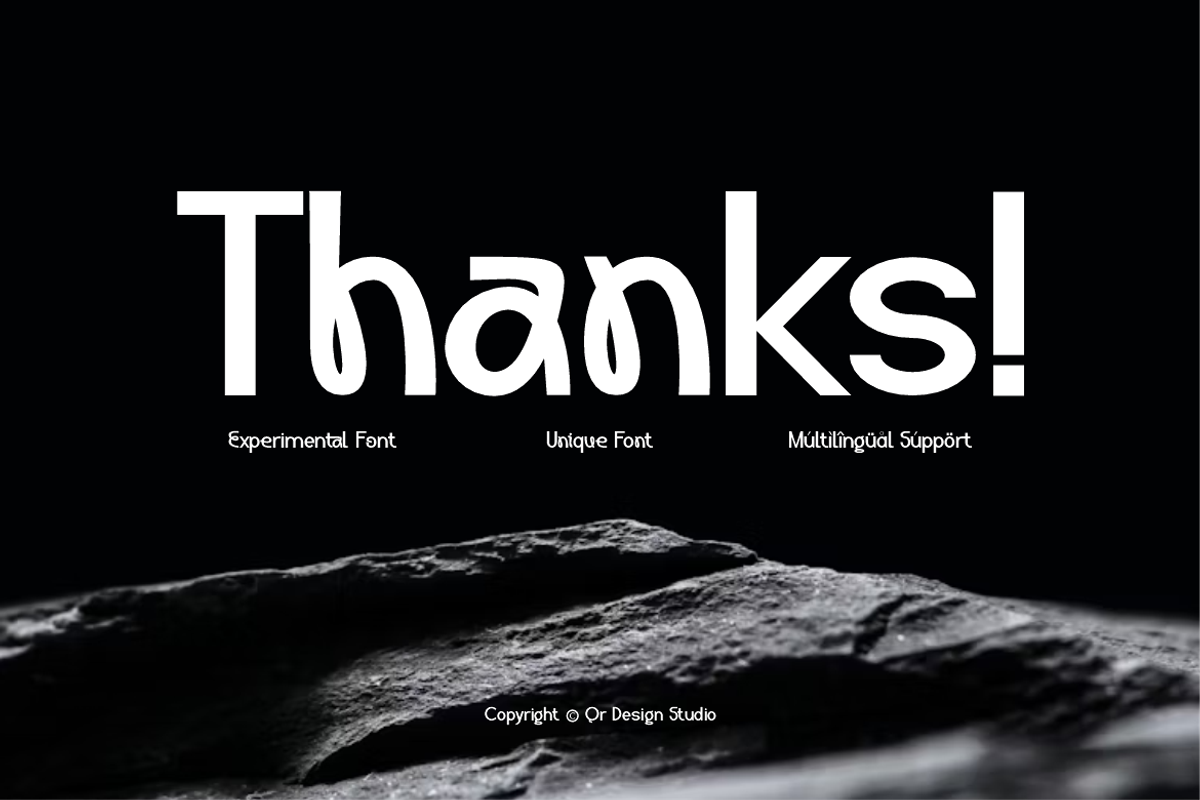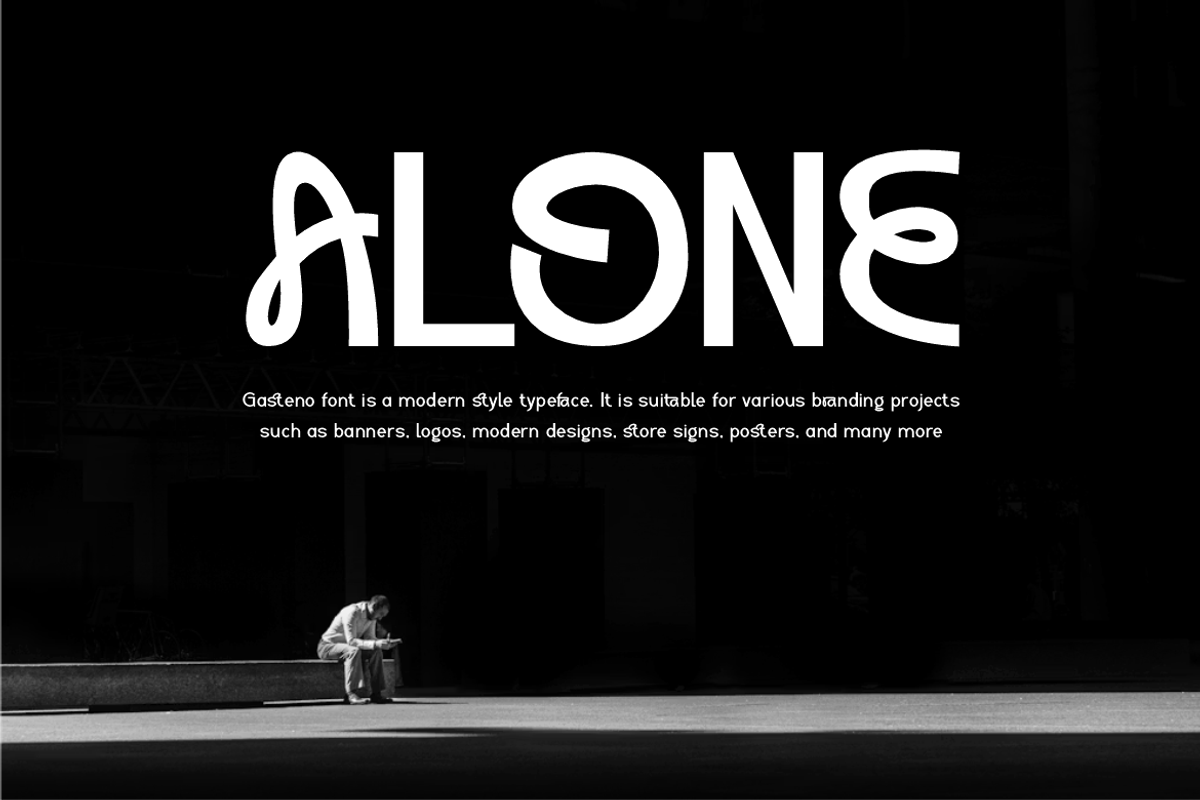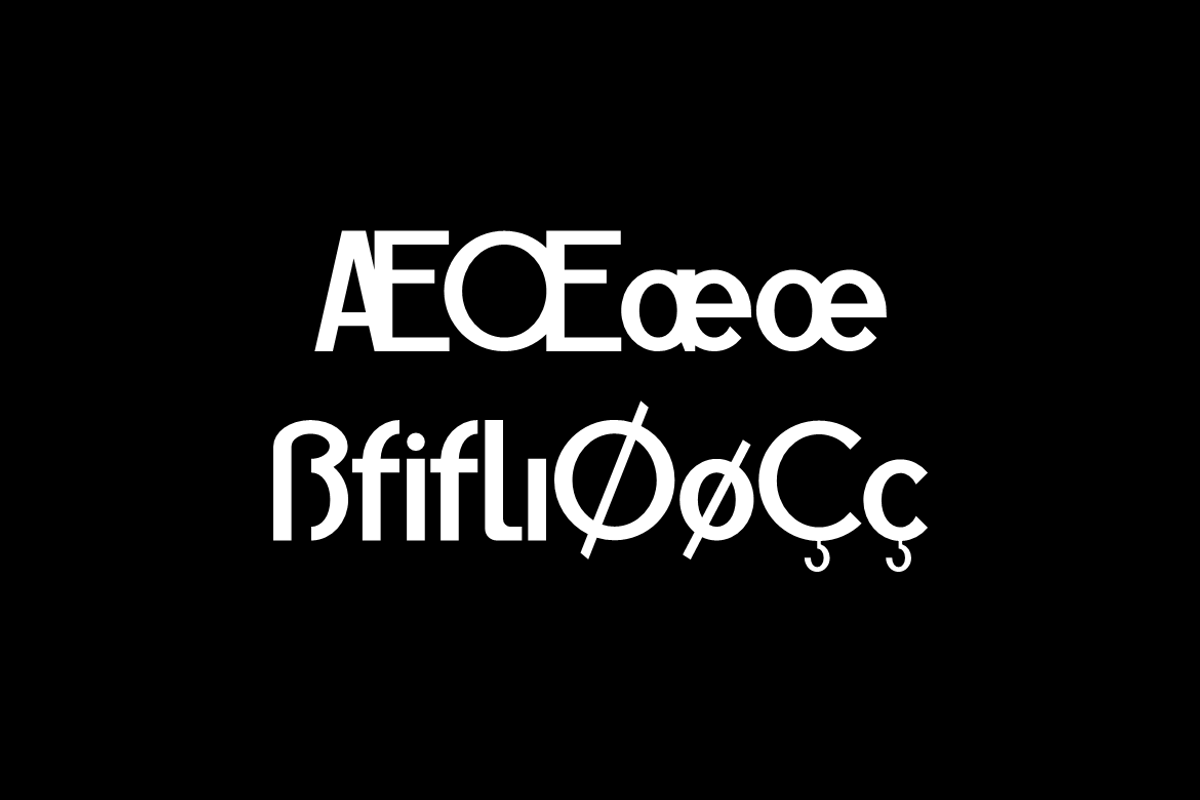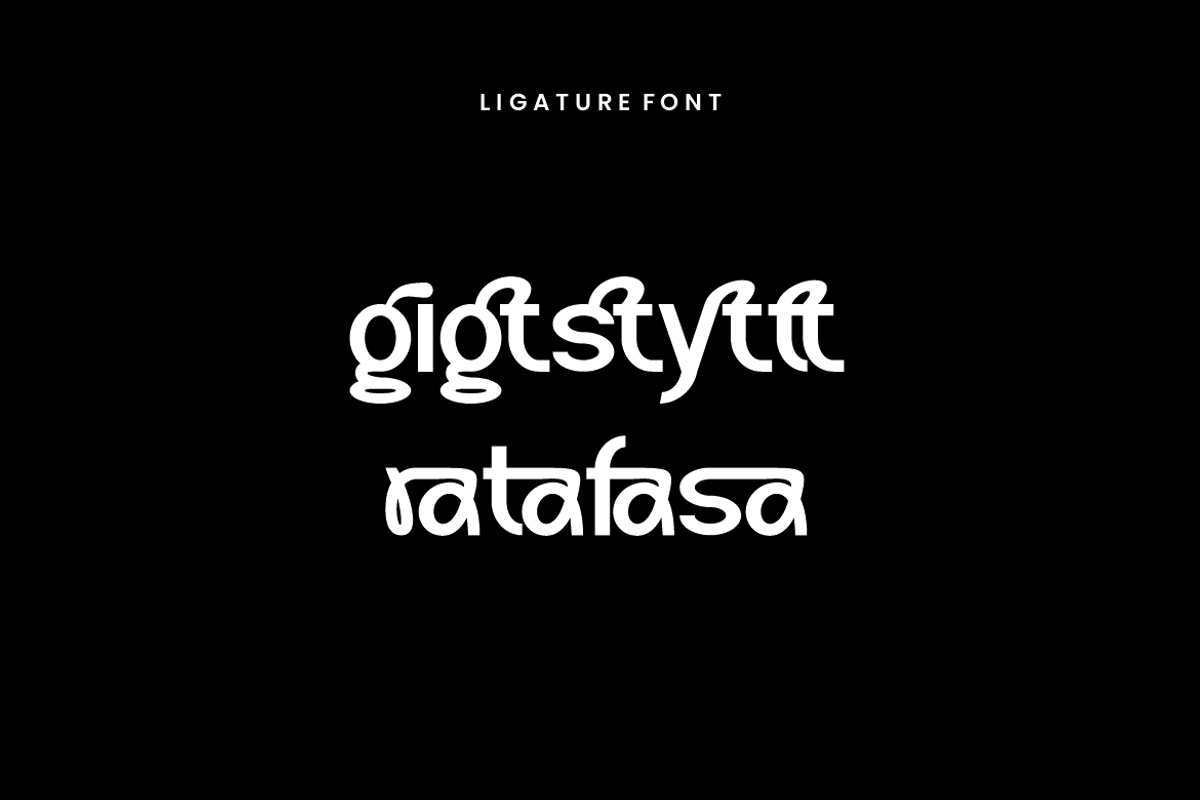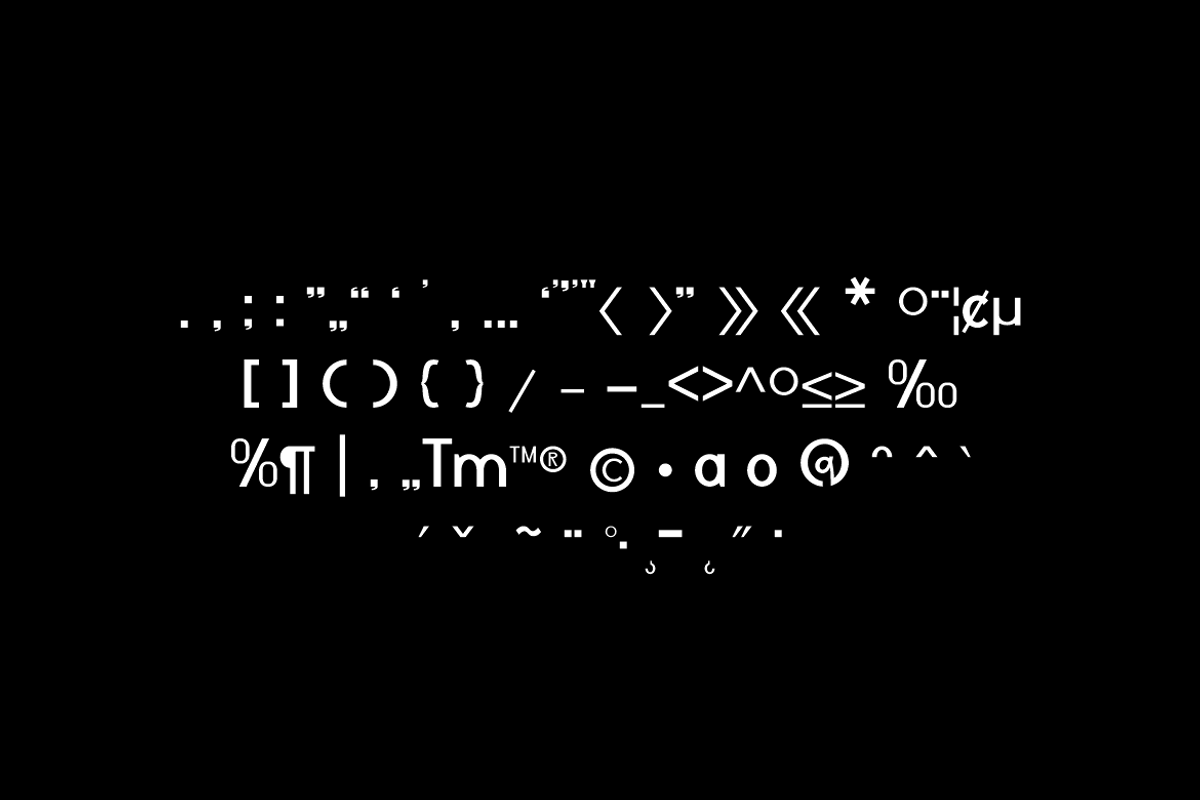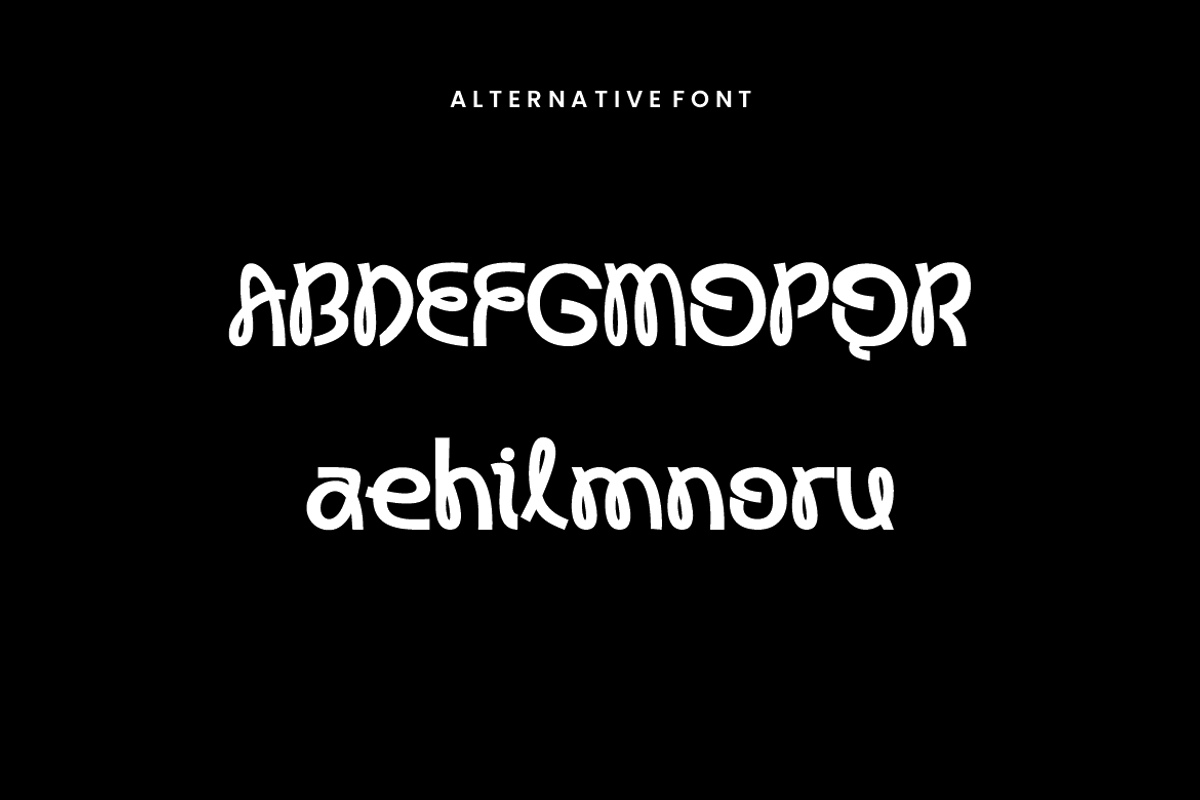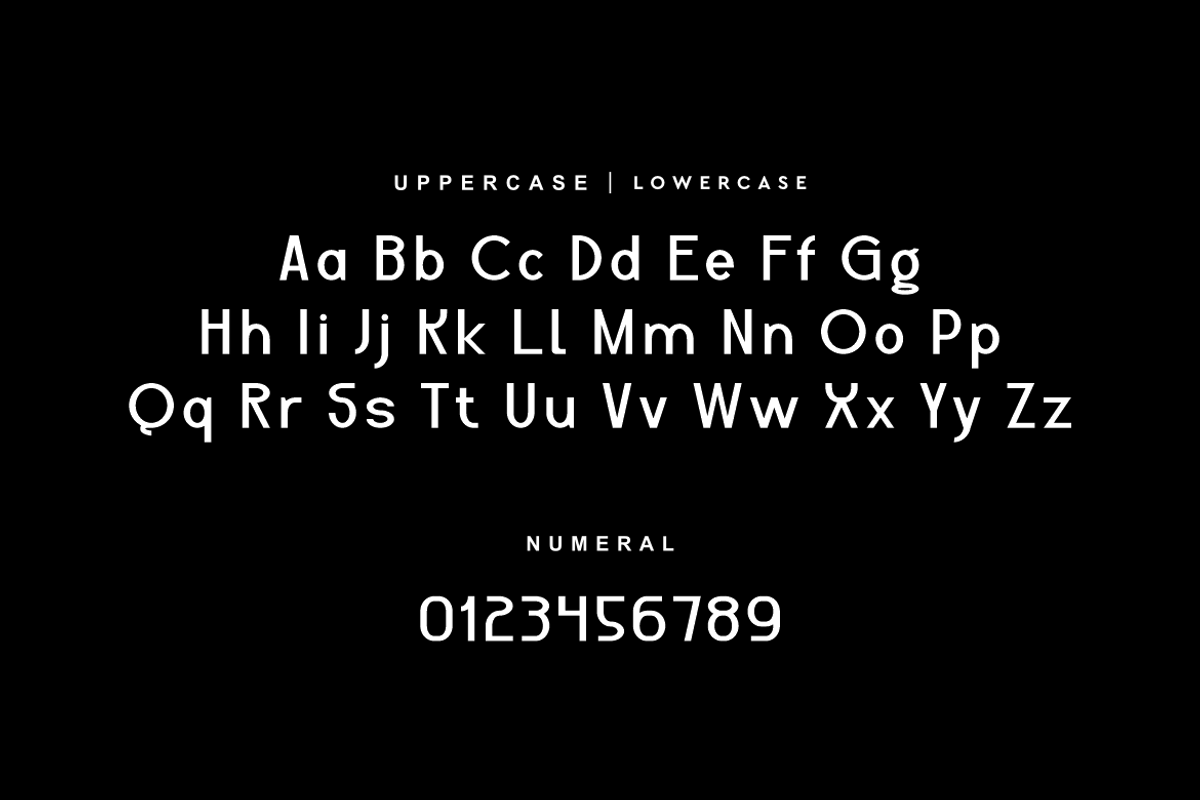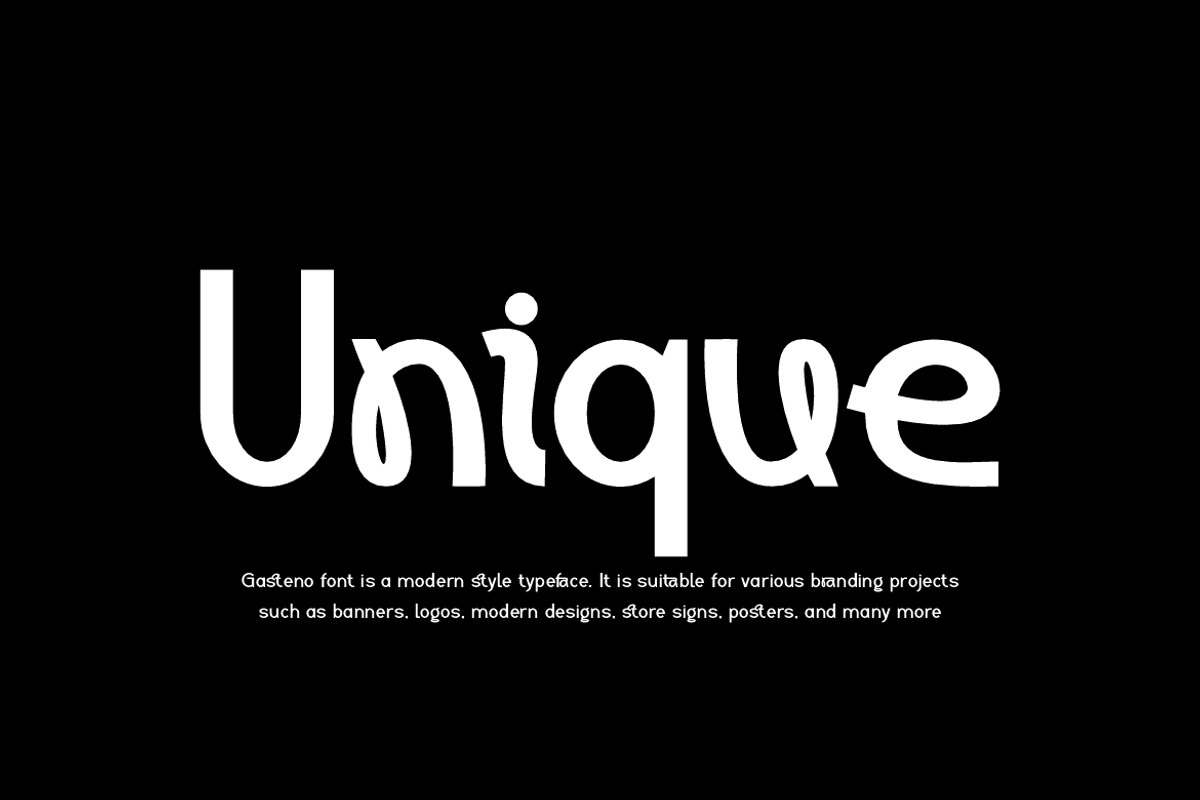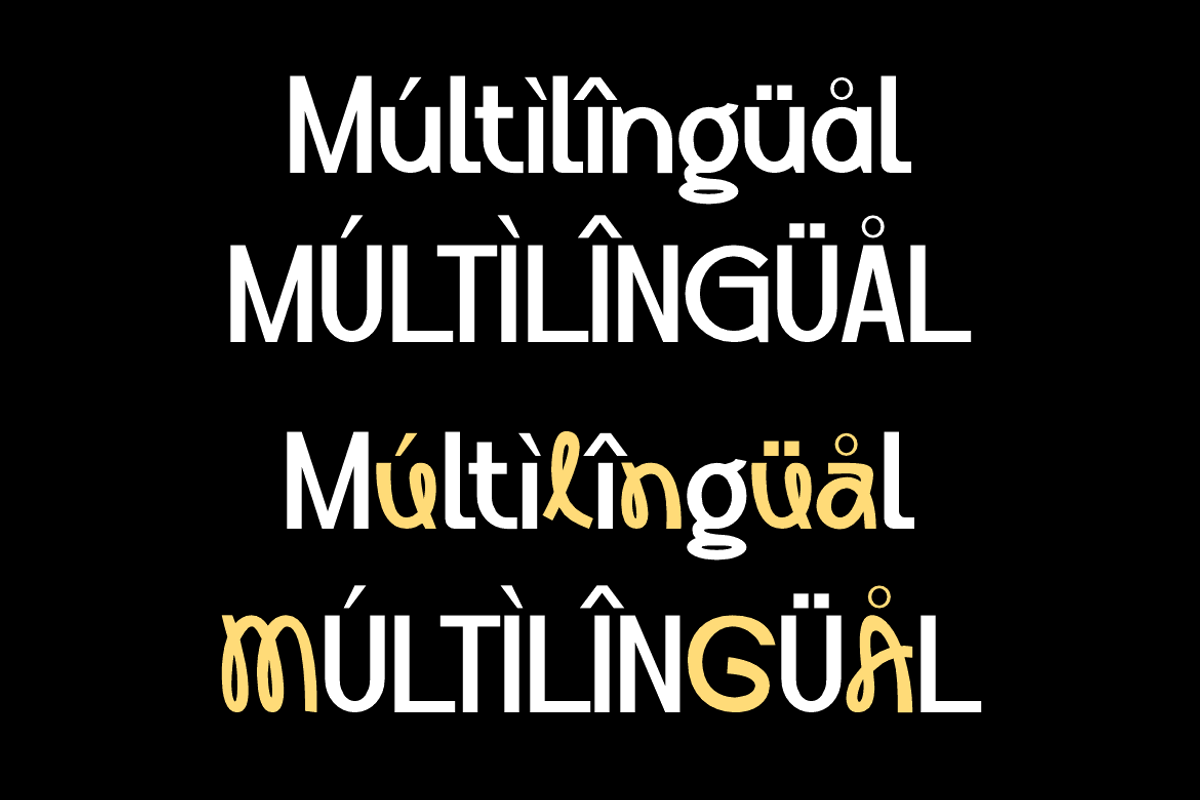
Gasteno - Experimental Unique Font
Gasteno Font is a sans serif and authentic display typeface. It’s perfect for various branding projects such as logos, modern designs, and more. This font stands out beautifully in a wide range of contexts.